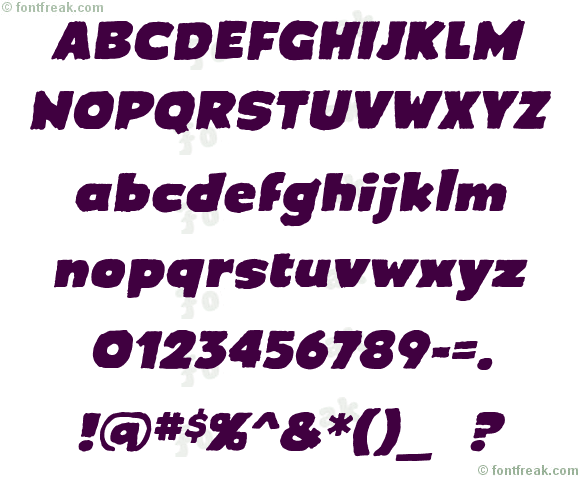
About Crimewave
The Crimewave font by Blambot Fonts is a striking display typeface that captures the essence of bold, urban aesthetics. Designed by Nate Piekos in 2009, this freeware font showcases a unique, gritty style that is perfect for projects that demand attention. The font features a strong, chunky design with a consistent stroke weight that ensures readability even at larger sizes. Its slightly condensed letterforms and angular edges give it a modern, edgy feel, while the subtle italic slant adds a sense of dynamism and movement.
Visually, Crimewave is characterized by its bold presence and geometric forms, which are enhanced by sharp angles and a slight contrast that provides visual interest without compromising clarity. The spacing between characters is well-balanced, allowing for easy legibility while maintaining a compact appearance. This makes it an excellent choice for various applications, particularly in the realms of graphic design and marketing.
Crimewave is ideal for use in movie posters, especially for action or thriller genres, as it conveys a sense of urgency and drama. It also works well on album covers for edgy music genres or as the focal point in promotional materials for events such as street festivals. Small business owners looking to create a standout logo or unique signage will find this font particularly appealing. Additionally, content creators can utilize Crimewave in digital graphics and social media posts to capture their audience's attention.
What sets the Crimewave font apart is its ability to blend a contemporary urban vibe with versatility, making it suitable for both digital and print media. The Crimewave font free download offers an exciting opportunity for designers and creatives to incorporate this distinctive typeface into their work, ensuring their projects stand out in a crowded visual landscape.